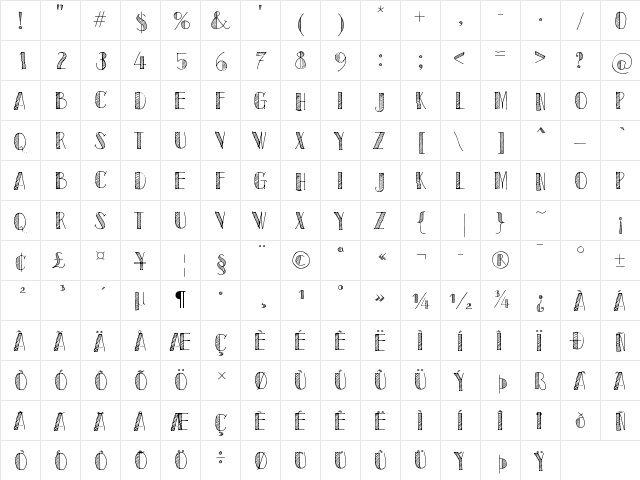
Sketch Toronto Regular
| Designer | Galdino Otten |
Design Context for Sketch Toronto Typeface
Sketch Toronto is a composed and adaptable typeface that performs quietly and consistently across a wide range of design contexts.